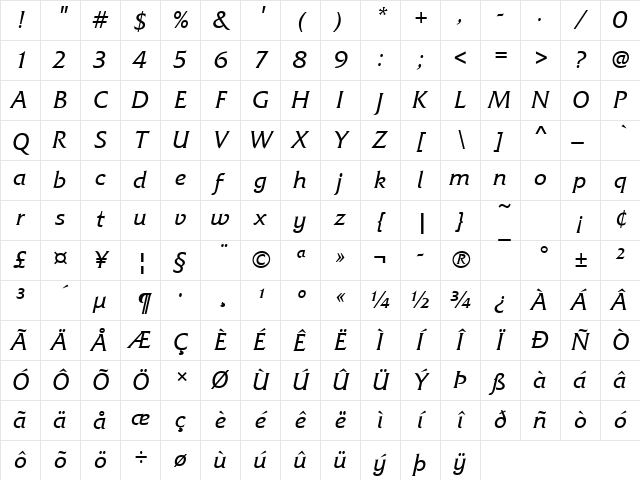
FrodiT Italic
FrodiT Family
Design Context for FrodiT
FrodiT is a composed and adaptable typeface that performs quietly and consistently across a wide range of design contexts. The slanted form adds forward momentum and visual energy.
Pro Tip: Use FrodiT for emphasis, pull quotes, and subheadings where its slanted energy can add rhythm to the layout.